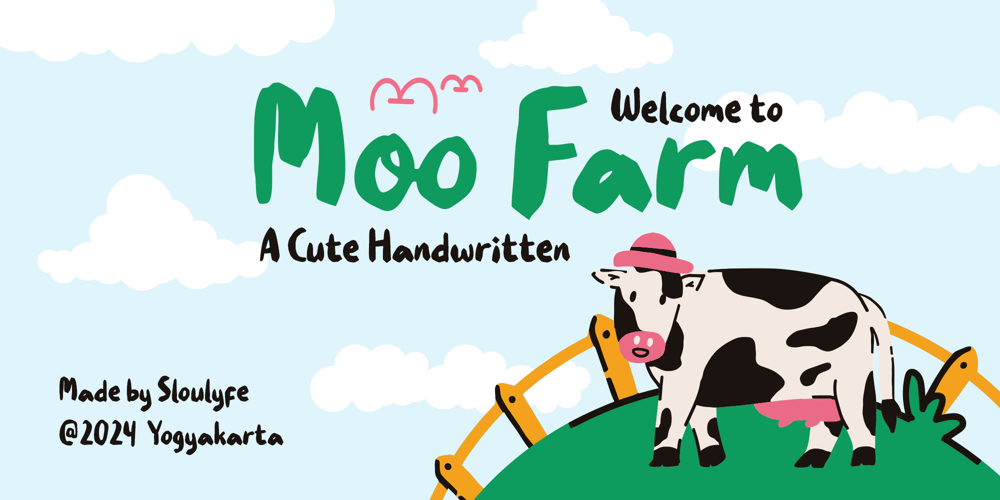
Moo Farm Font Family was designed by Amelia Dian Isnaini and published by Sloulyfe Studio. Moo Farm contains 1 styles and family package options. Mooooo~ Welcome to Moo Farm, where fun meets affordability! 🐄 Perfect for all your brand needs, from food-themed menus to catchy advertisements, birthday invites, baby showers, banners, and beyond! 🍰🎈What’s inside? Uppercase & Lowercase Number & Punctuation Alternate Characters/Ligature Option PUA Encoded & Multilingual Support Let your creativity run wild with Moo Farm!